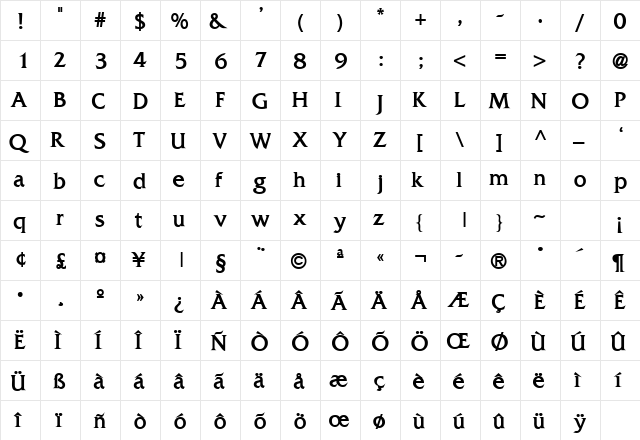
MusterLightSSK Bold
Design Context for MusterLightSSK Typeface
MusterLightSSK is a composed and adaptable typeface that performs quietly and consistently across a wide range of design contexts. Its bold stroke weight gives it real presence on the page.